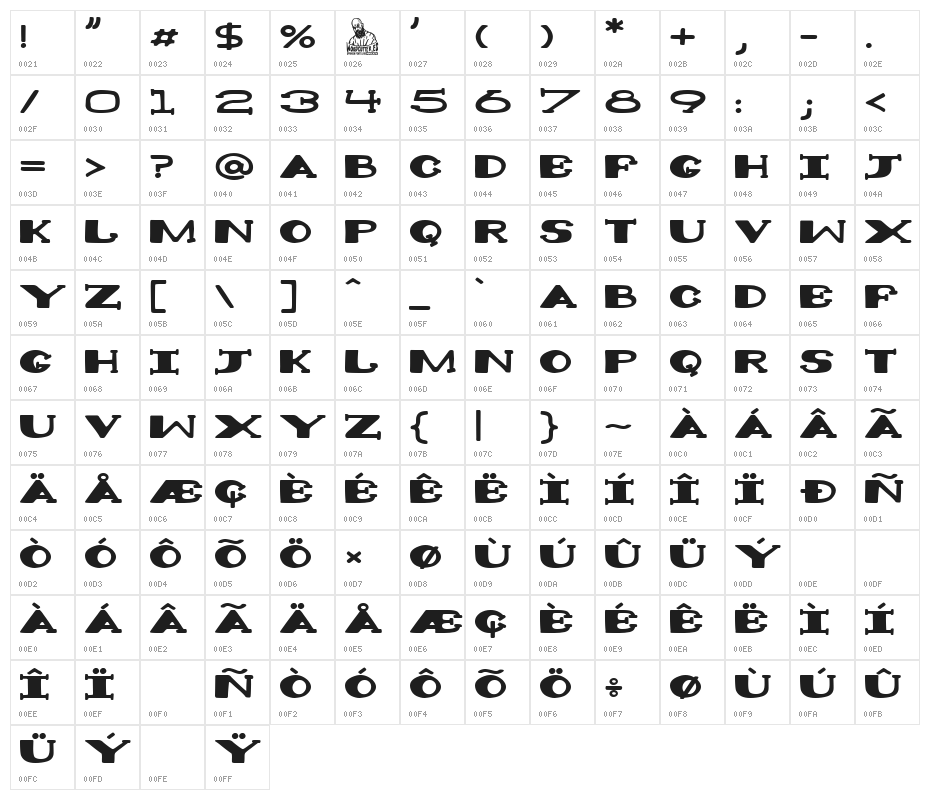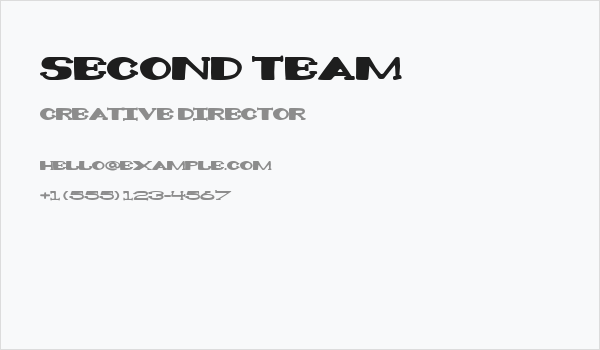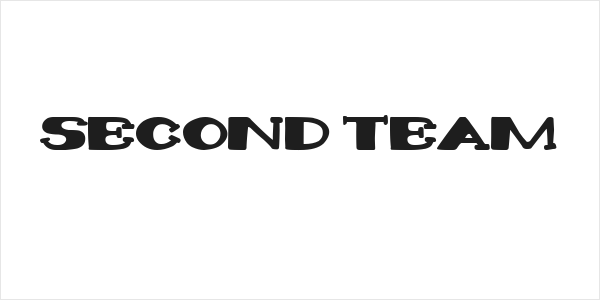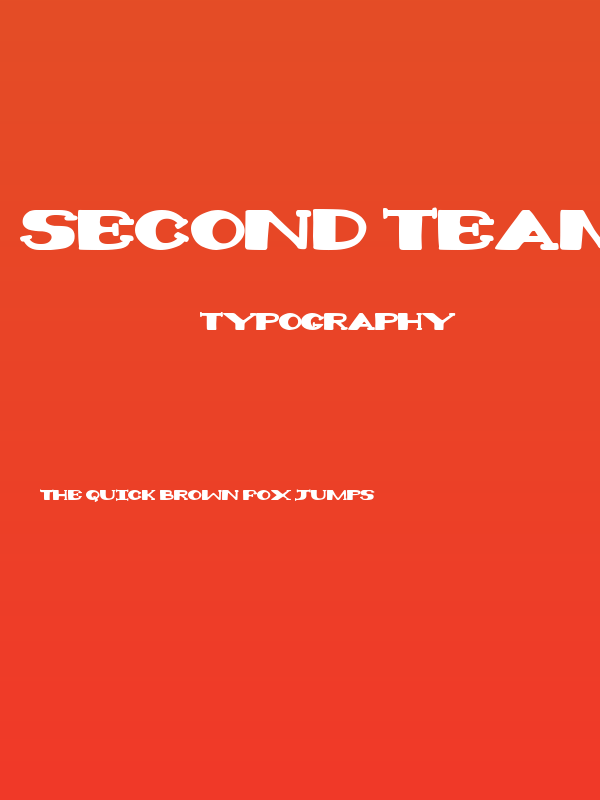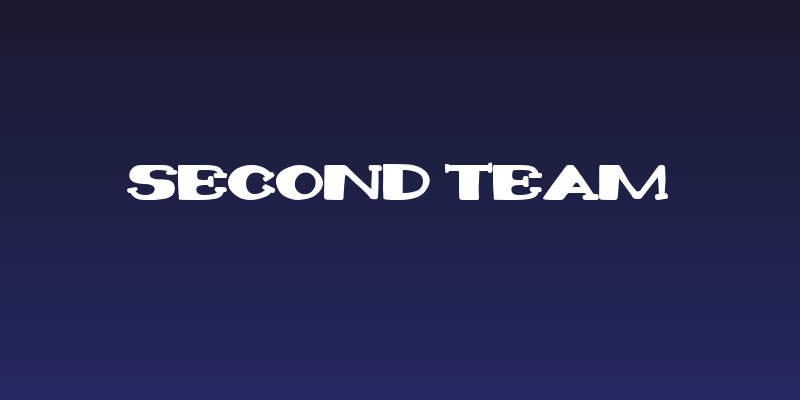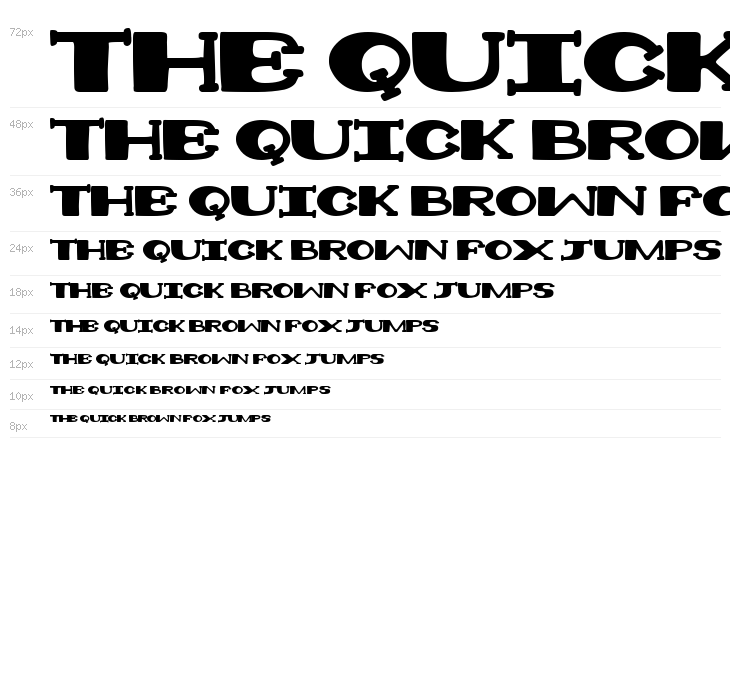
Second Team Font
Second Team Description
A bold, decorative display font with slab serif characteristics and unique mechanical or industrial elements, featuring thick strokes and distinct, bracketed serifs. The characters have a playful, almost cartoonish appearance with exaggerated terminals and some irregularities in form.
| Overall Style | Decorative, Industrial, Playful |
| Use Case | Headlines, Logos, Posters, Display text |
| Proposed Projects | Posters, logos, headlines, event flyers, themed branding, childrenΓ’β¬β’s materials. |